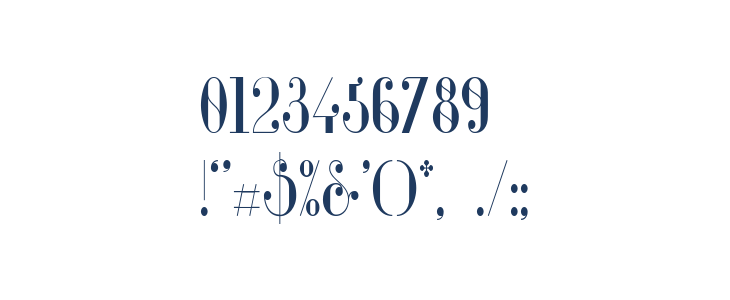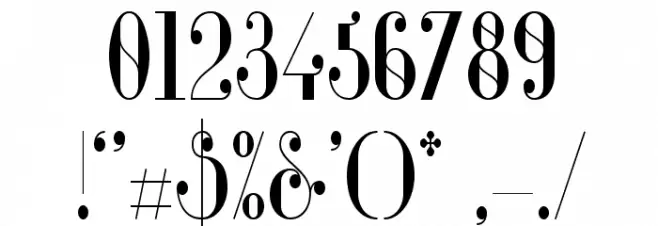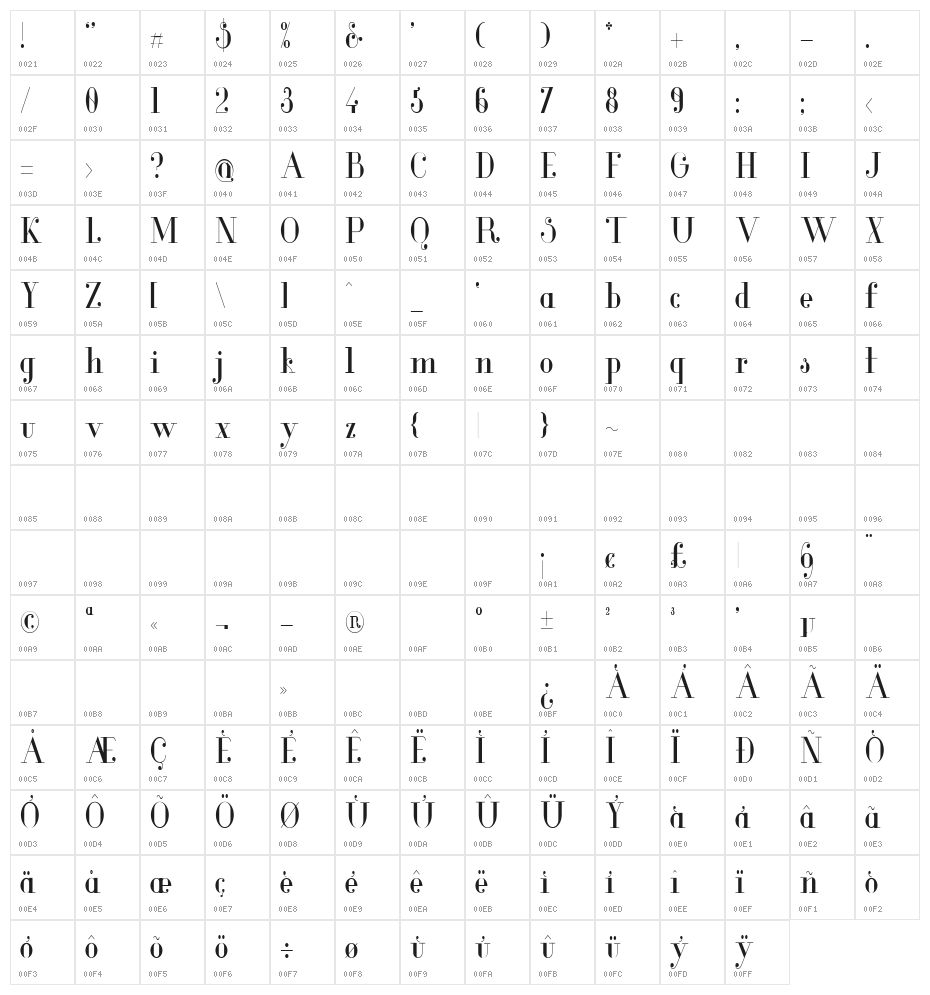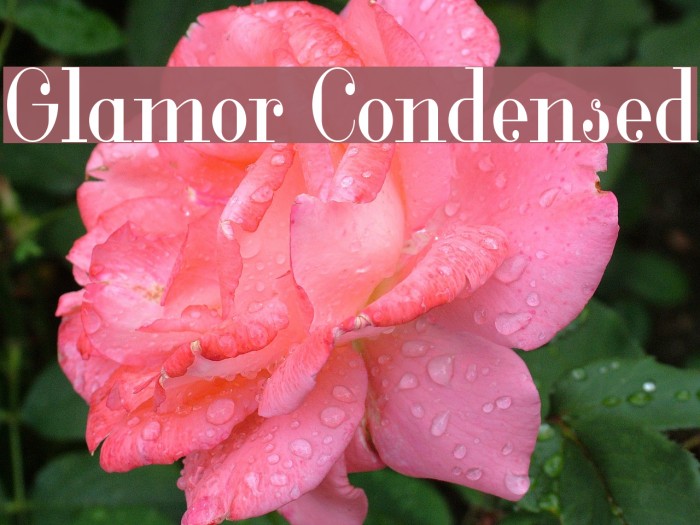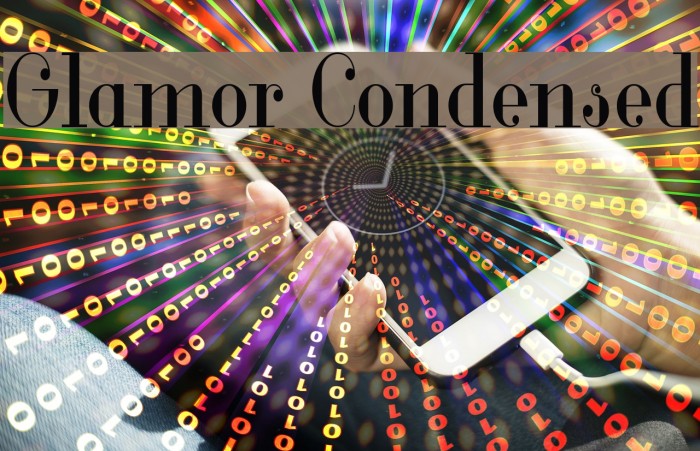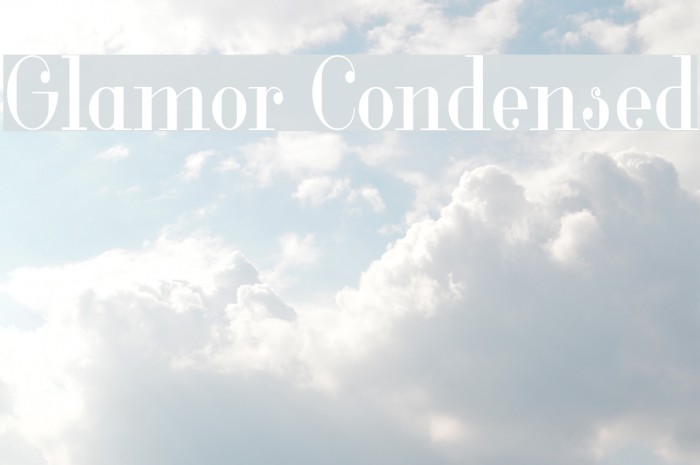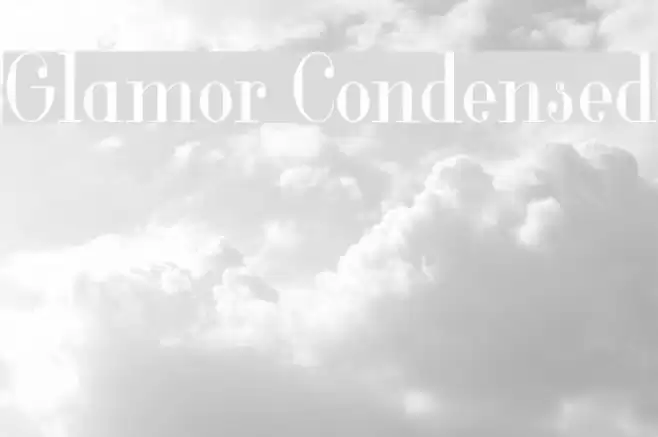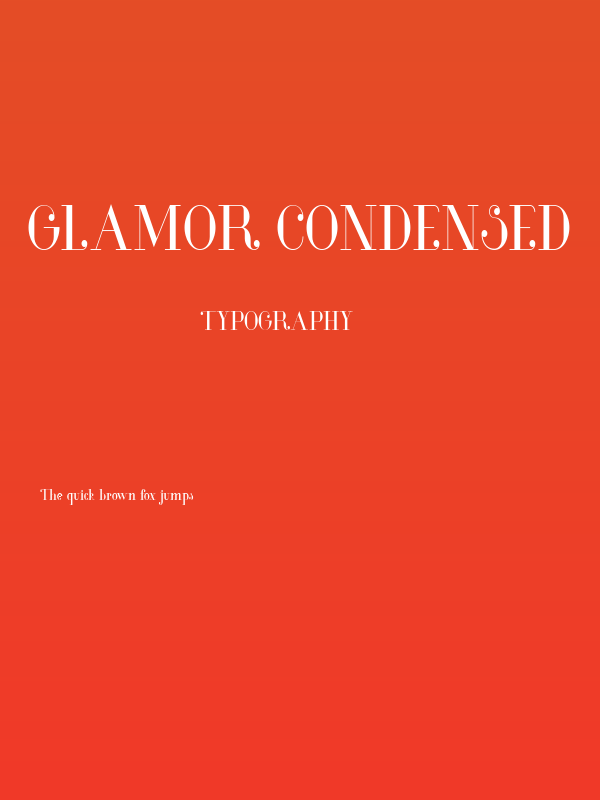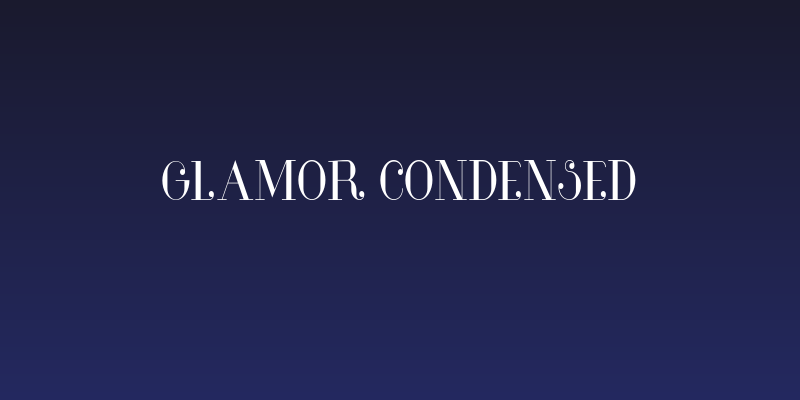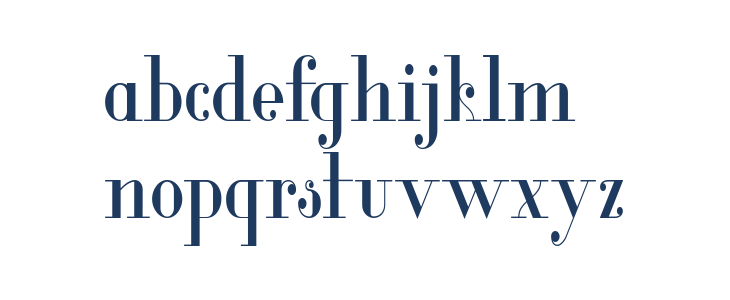
Glamor Condensed Font
Glamor Condensed Description
This font features a sophisticated and elegant design with a condensed structure. The characters exhibit high contrast between thick and thin strokes, adding a dramatic flair. The serifs are pronounced, giving it a classic and timeless appeal. The uppercase letters are tall and slender, while the lowercase letters maintain a consistent style with unique curves and flourishes. The numerals are distinct and stylish, complementing the overall aesthetic. Special characters are designed with the same attention to detail, making this font versatile for various applications.
| Proposed Projects | Ideal for luxury branding, fashion magazines, wedding invitations, and high-end product packaging. |